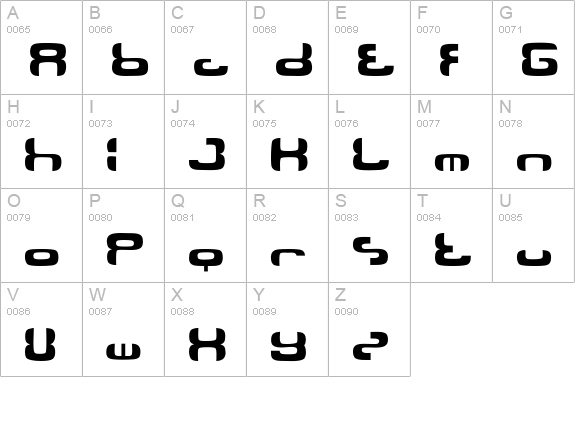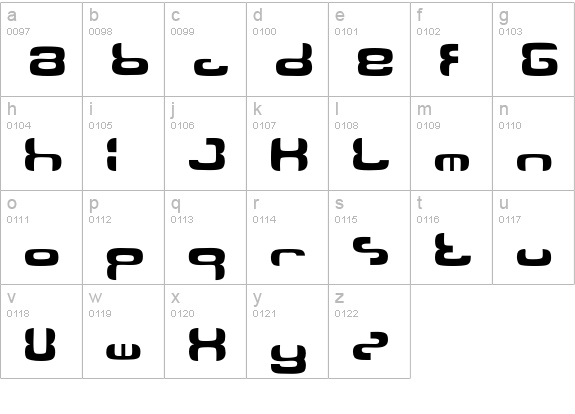
Ollon Font Details
Ollon font is a versatile and elegant typeface that adds a touch of sophistication to any design project. Its sleek lines and modern aesthetic make it perfect for a wide range of applications, from branding to editorial design. With its clean and timeless look, Ollon font is sure to make your text stand out and leave a lasting impression on your audience. What's even better is that Ollon font is available for free download at FontsMarket.com. So you can easily access this beautiful typeface and incorporate it into your projects without any extra cost. Don't miss out on the opportunity to enhance your designs with the stunning Ollon font today!